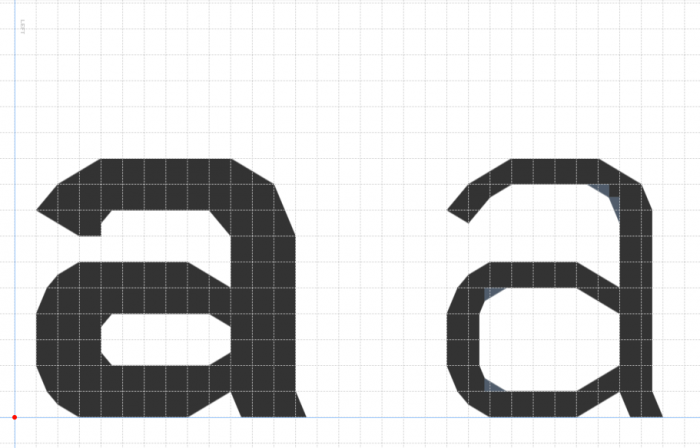
Hah, I'm a sucker for Unicode fonts, and this one is very well done :D
A solid sans, with large coverage to boot :) Perhaps the IJ could be made closer together, or like a broken U (as seen in some fonts)?
Congratulations! FontStruct Staff have deemed your FontStruction worthy of special mention. “Soniano Sans Unicode” is now a Top Pick.
This is so awesome. And I finally know how to make bigger "curves" now, thanks!
By any chance would you be interested in making a light version? I adjusted the 'a' character and it looks like it would be just as good as this one (I did use nudging for the dark grey bricks, though). If it would be too much of a hassle, that's alright too.
I don't even know what to say - knowing how difficult and time-consuming Unicode fonts can be, it's impressive this was done in just two weeks!  And well too!